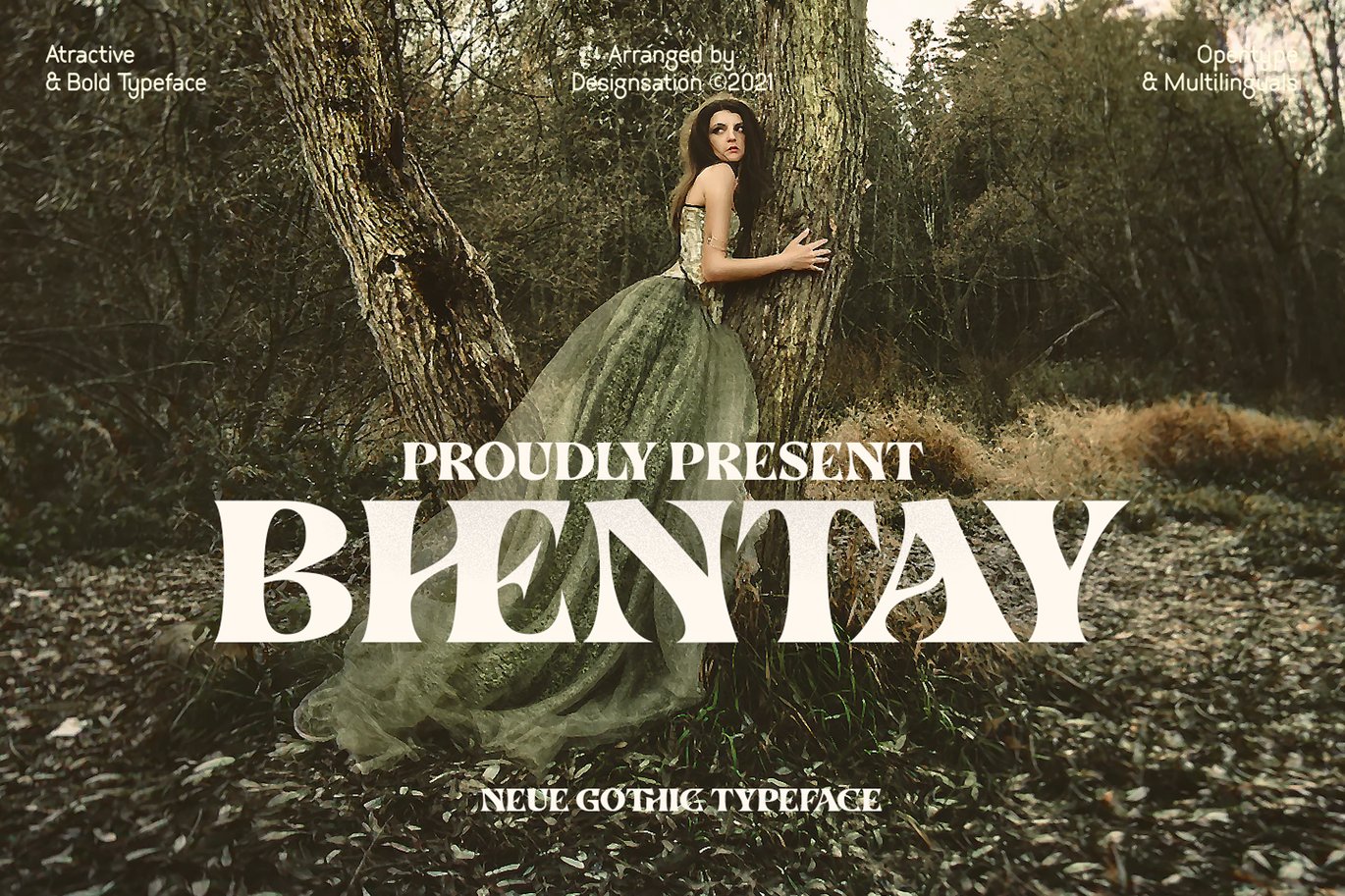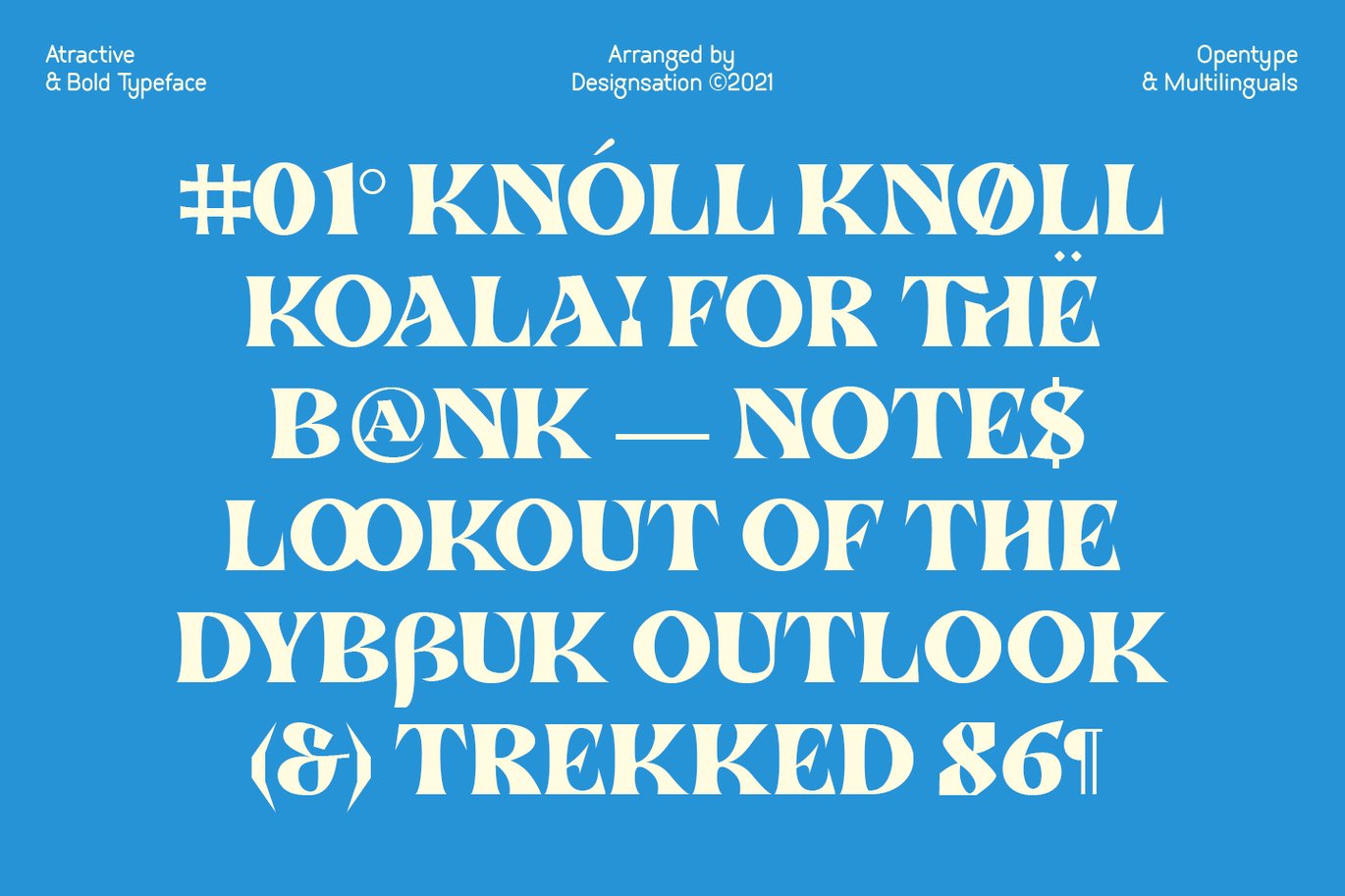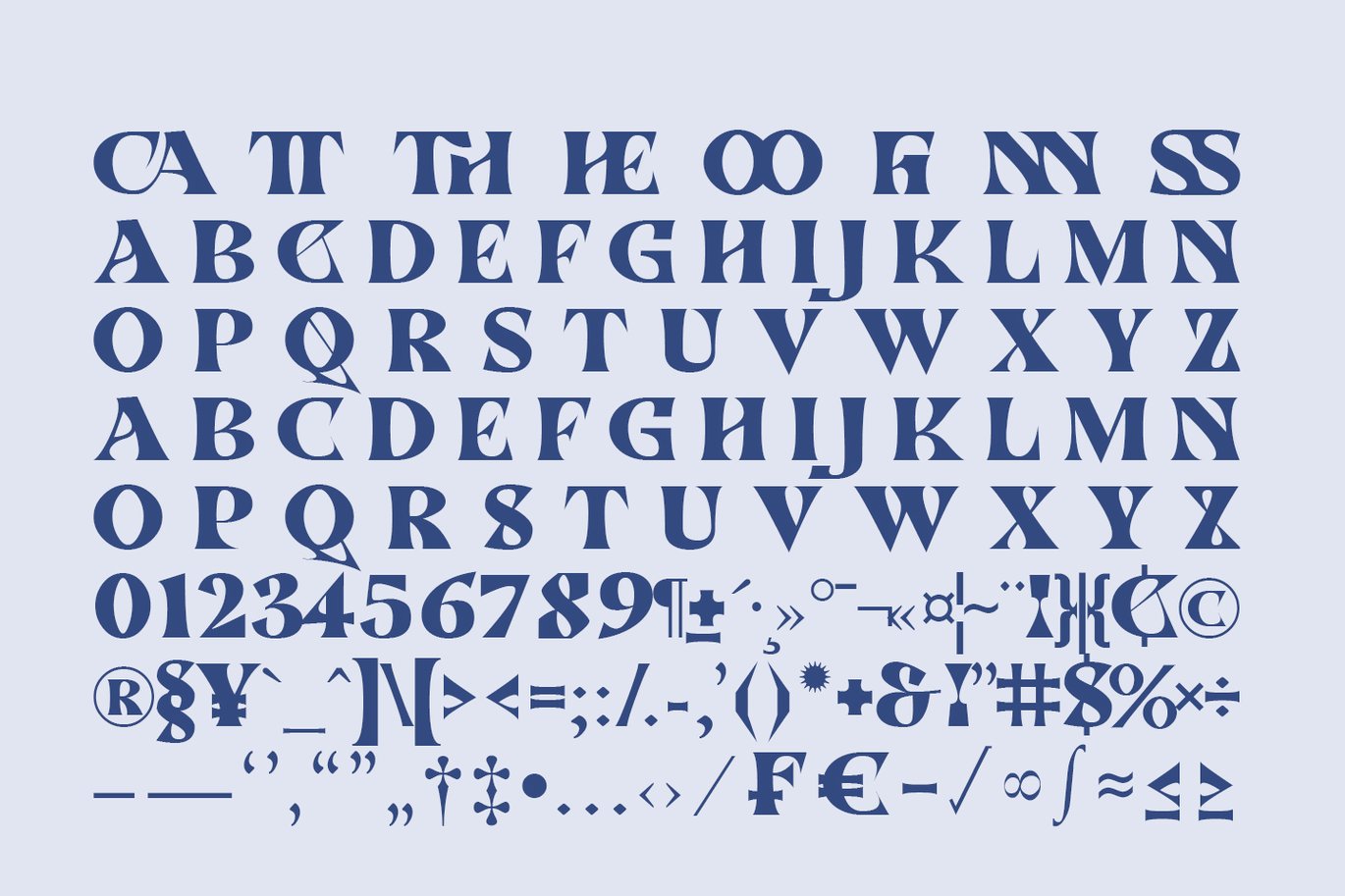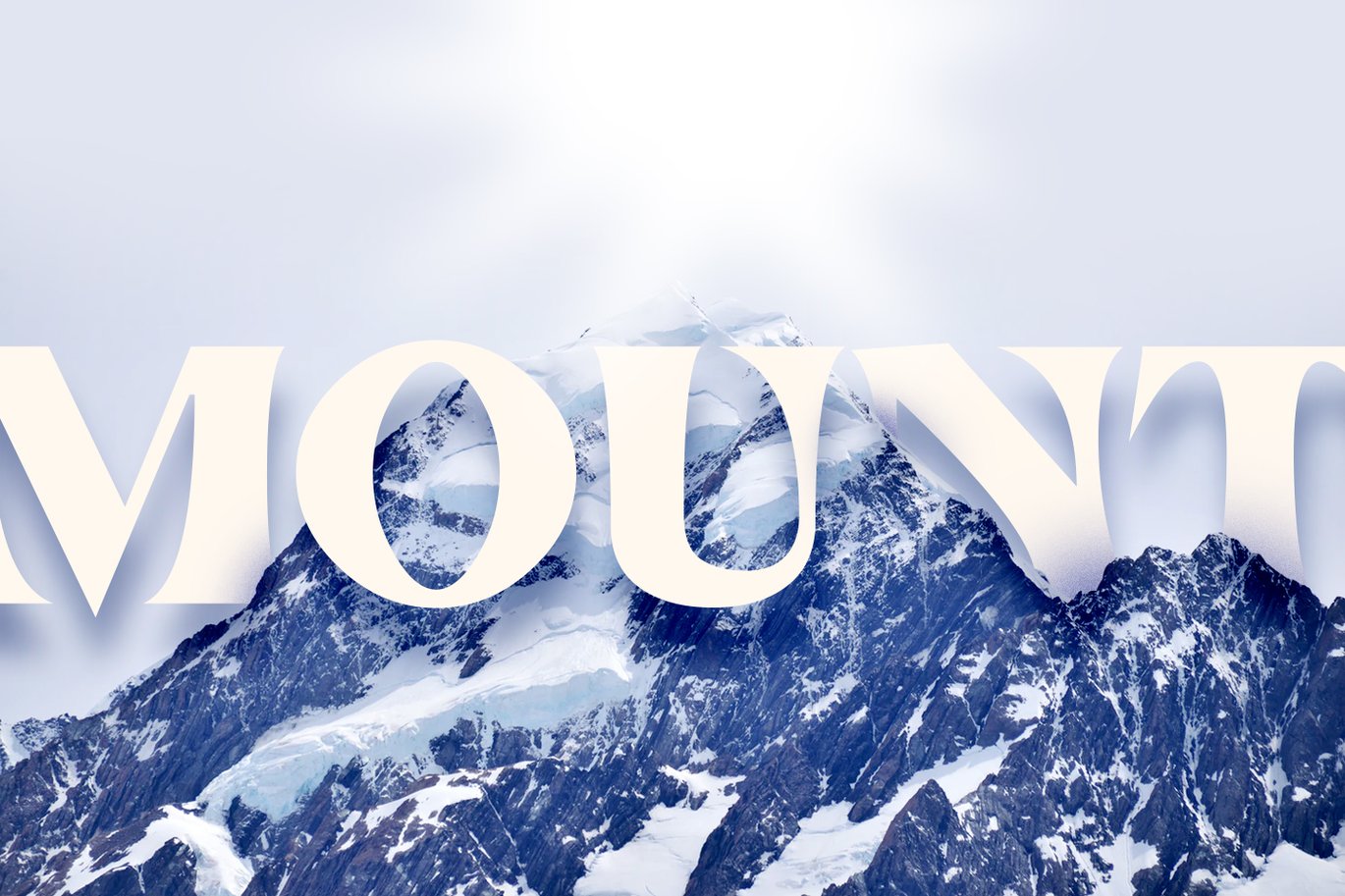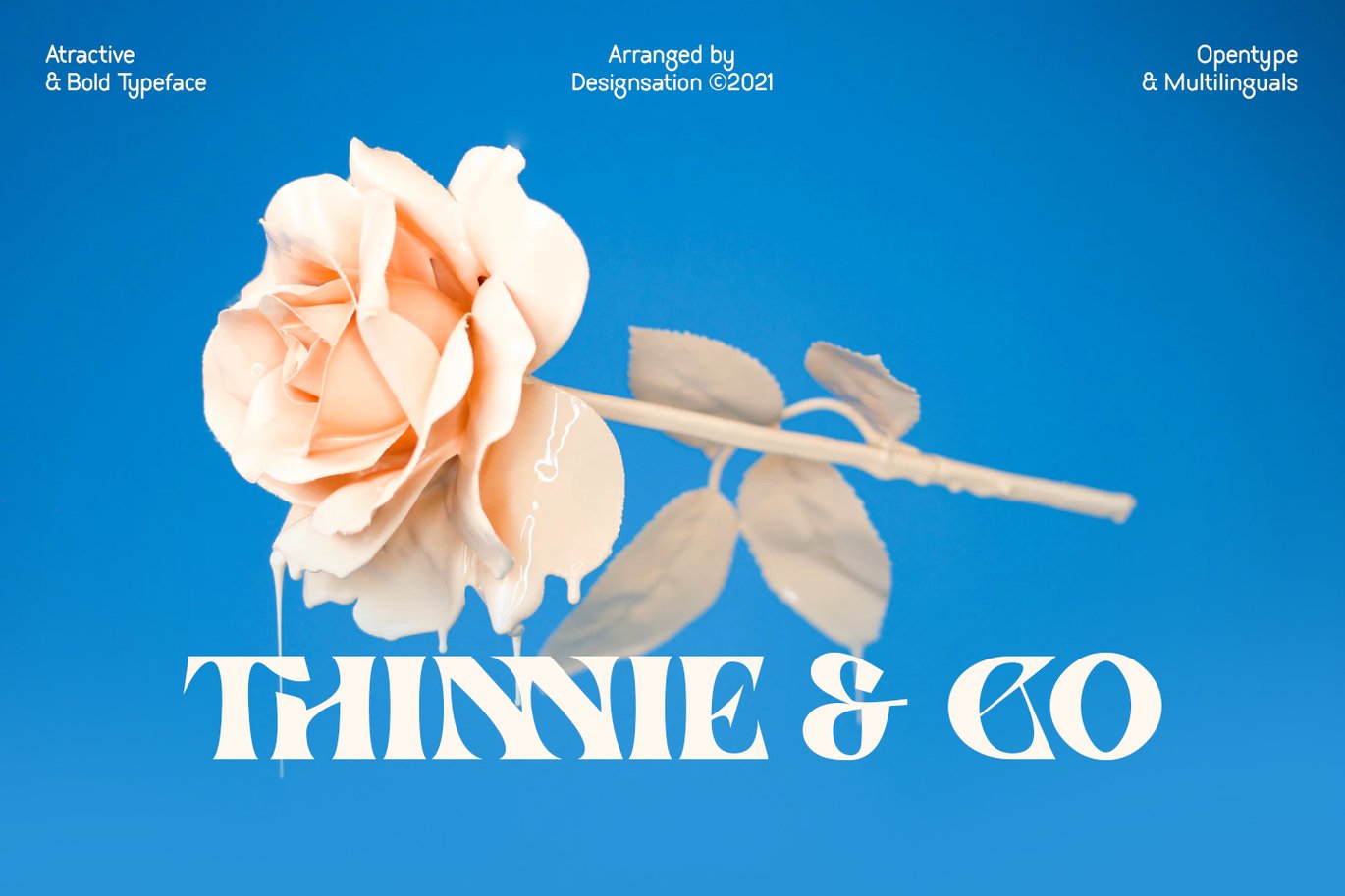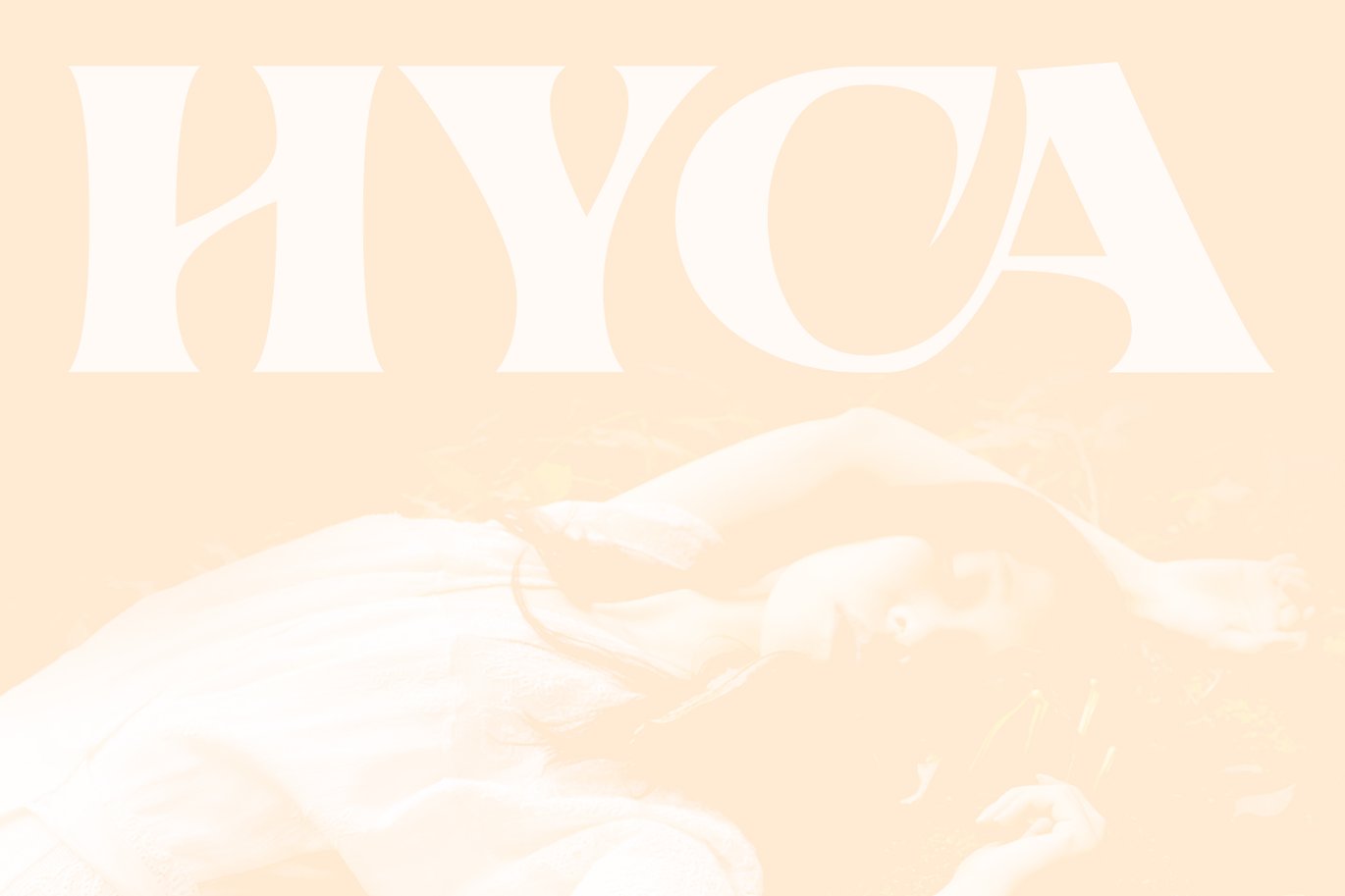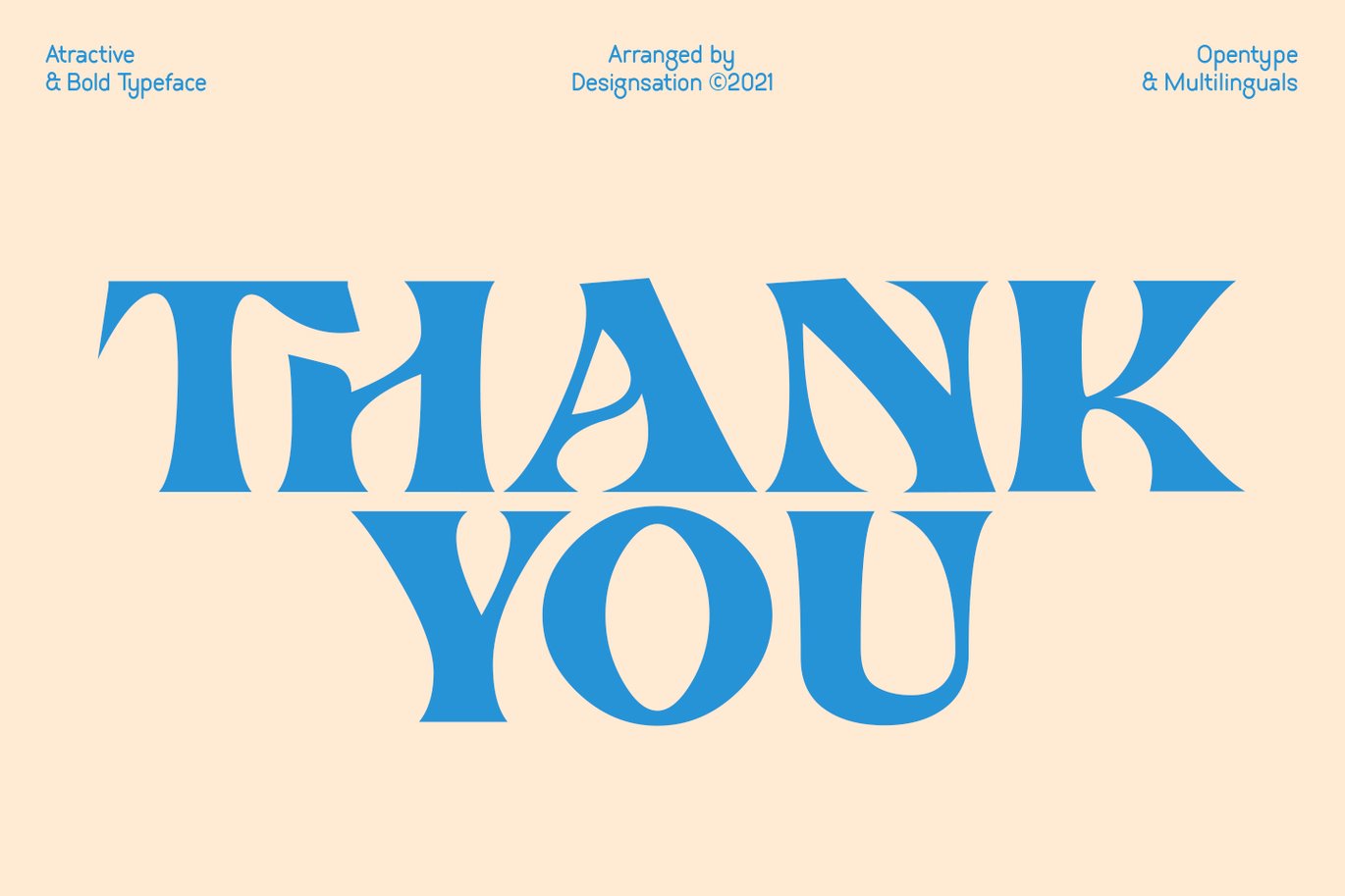
Bhentay Typeface
Bhentay
Experimental gothic serif typeface. Fit for any Headline needs, especially Movie or Film poster, Magazine, Creative Company, Video Game, Mobile Game, Horror, Thriller, documentary needed, also used for printed design, web font, branding, logo type, and Social media promotion.
The shape reflecting an Exclusivity, Secret, also brave look for your designs.
Some Open Type features included, like Ligatures and Multilanguage, make your design looks authentic as one simply changes from basic character then switch it to activate the feature.